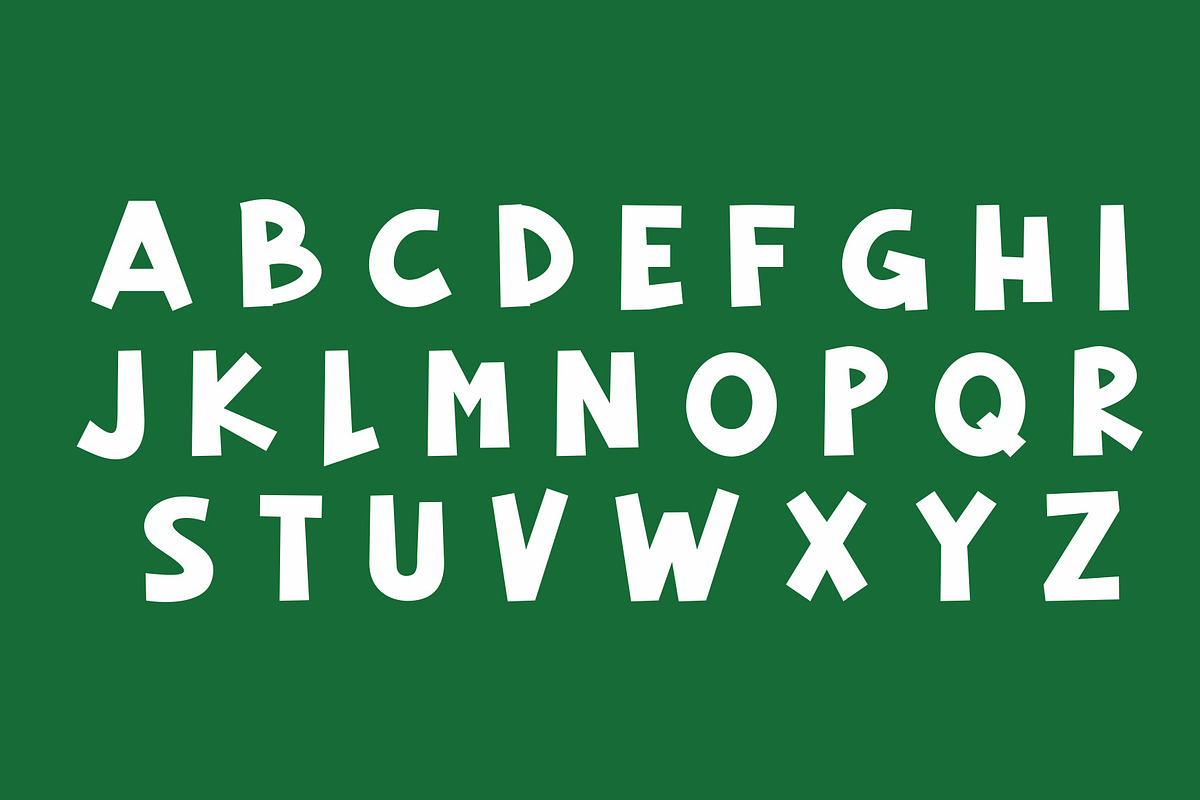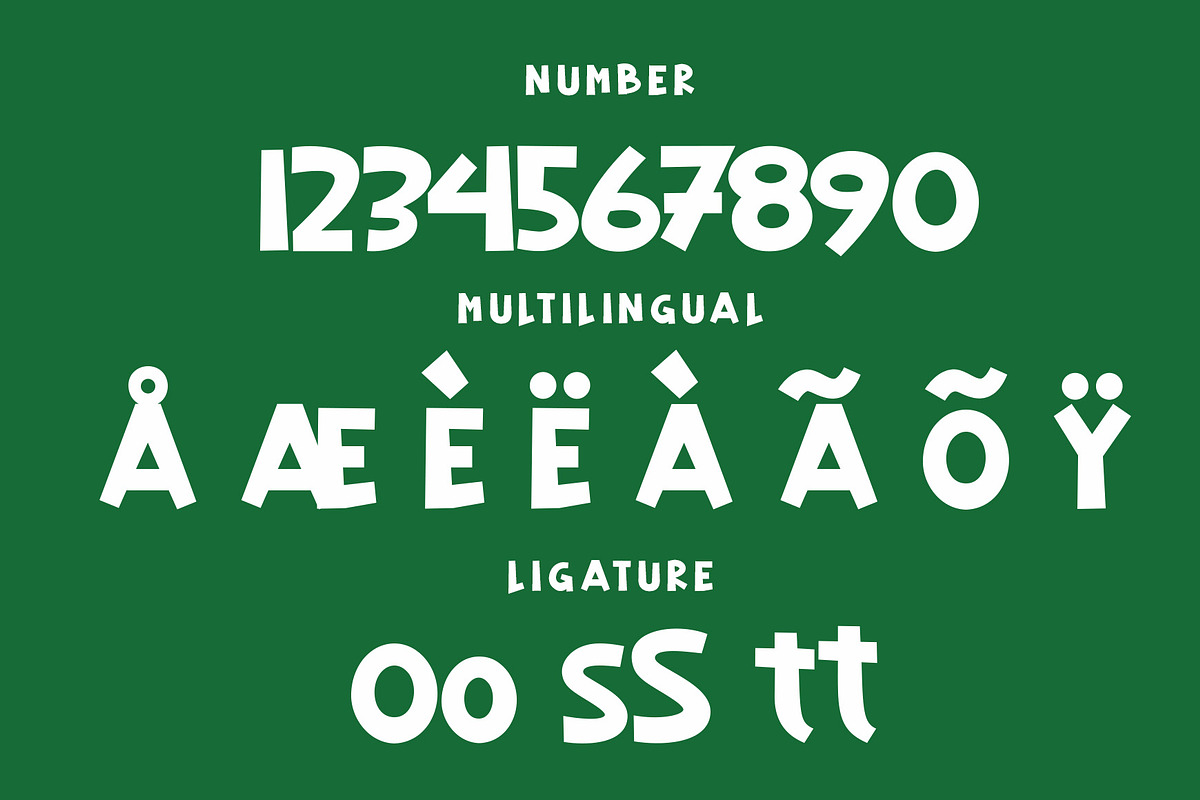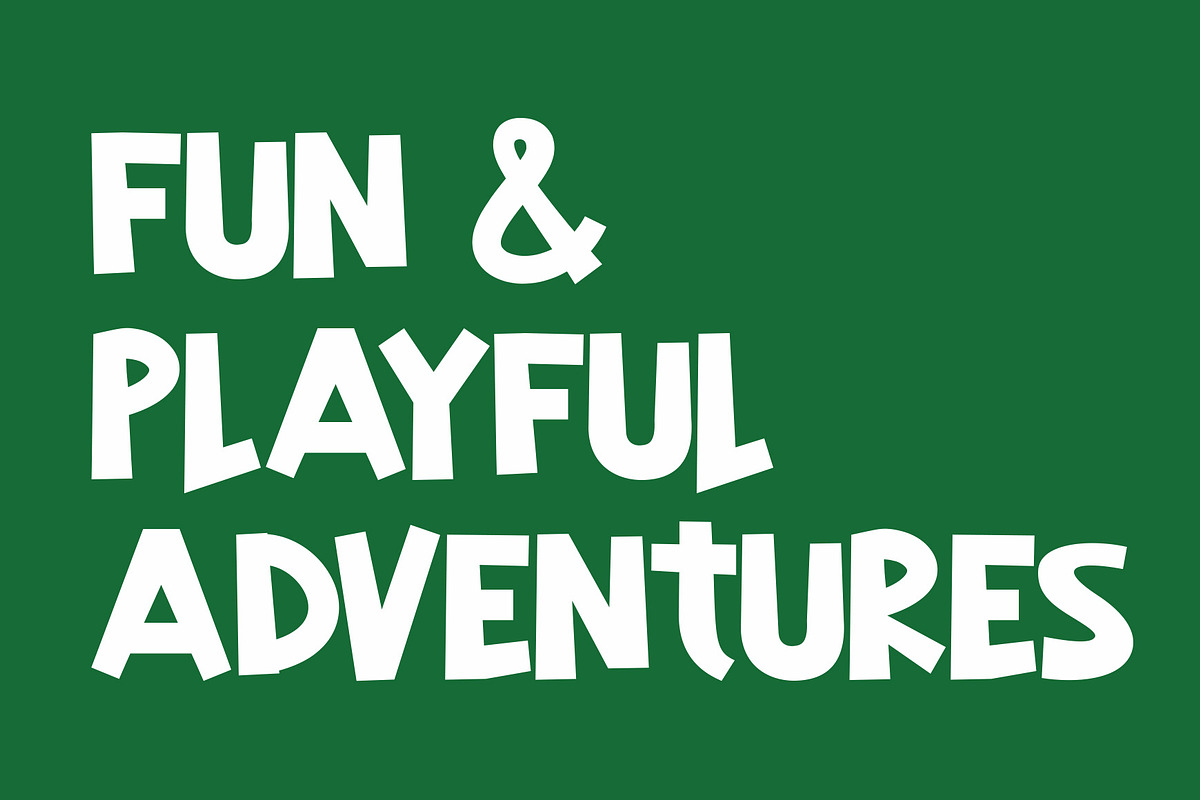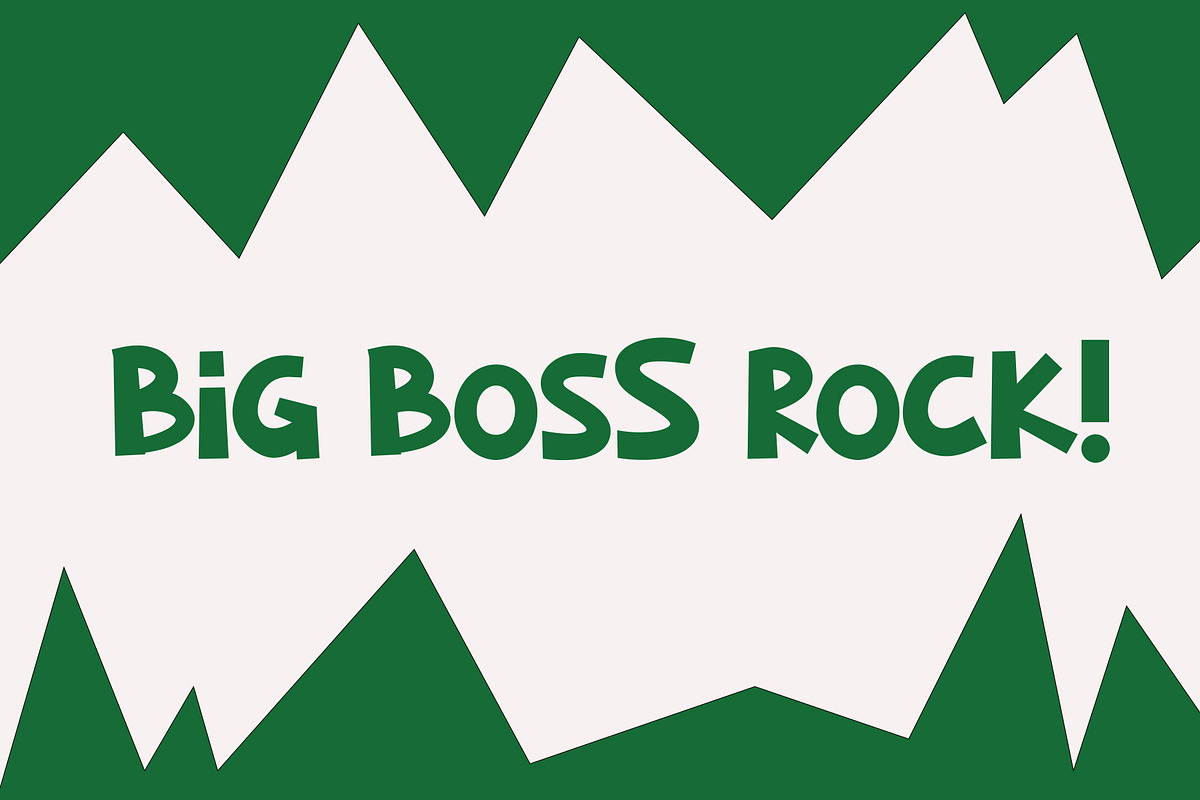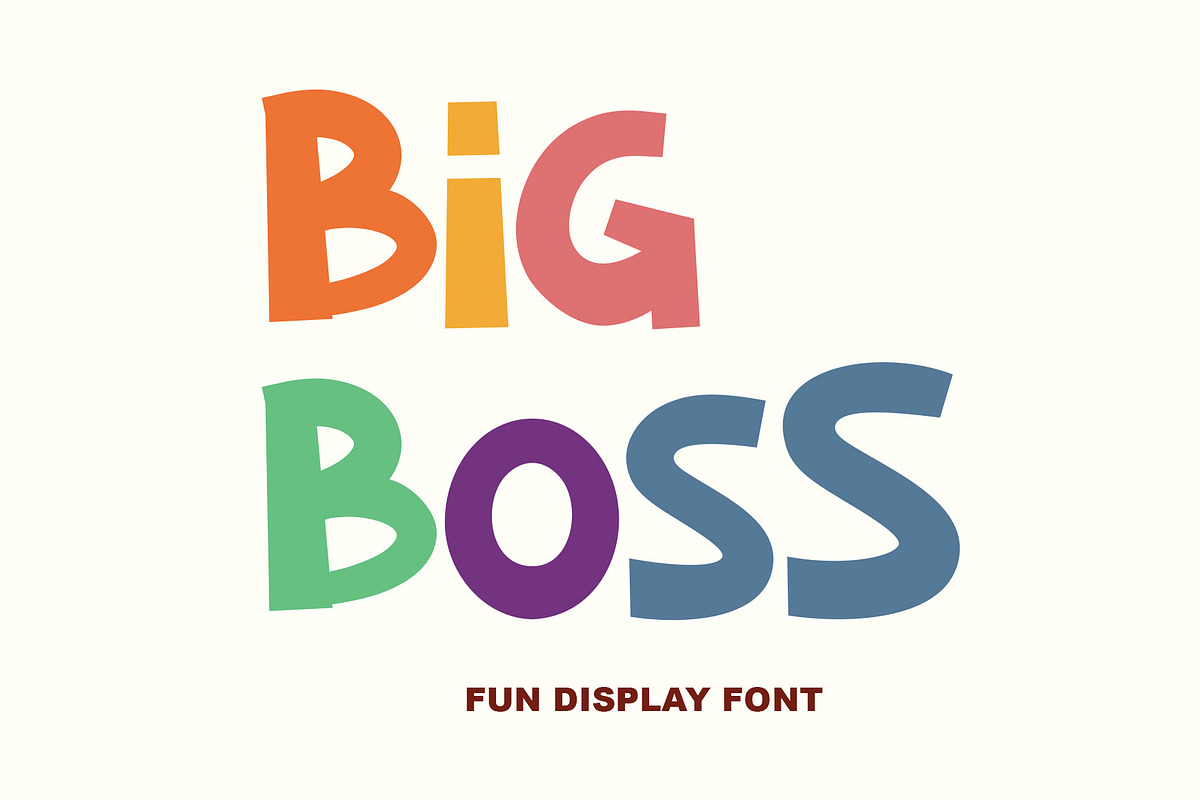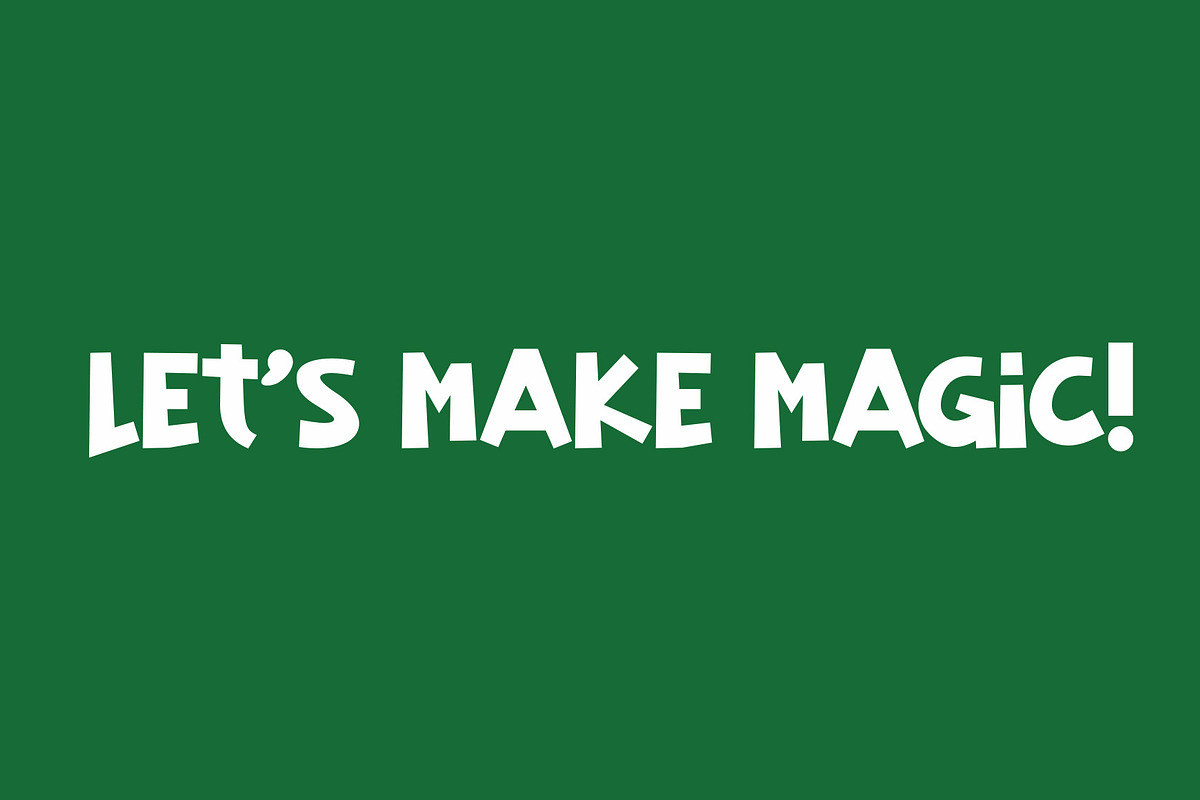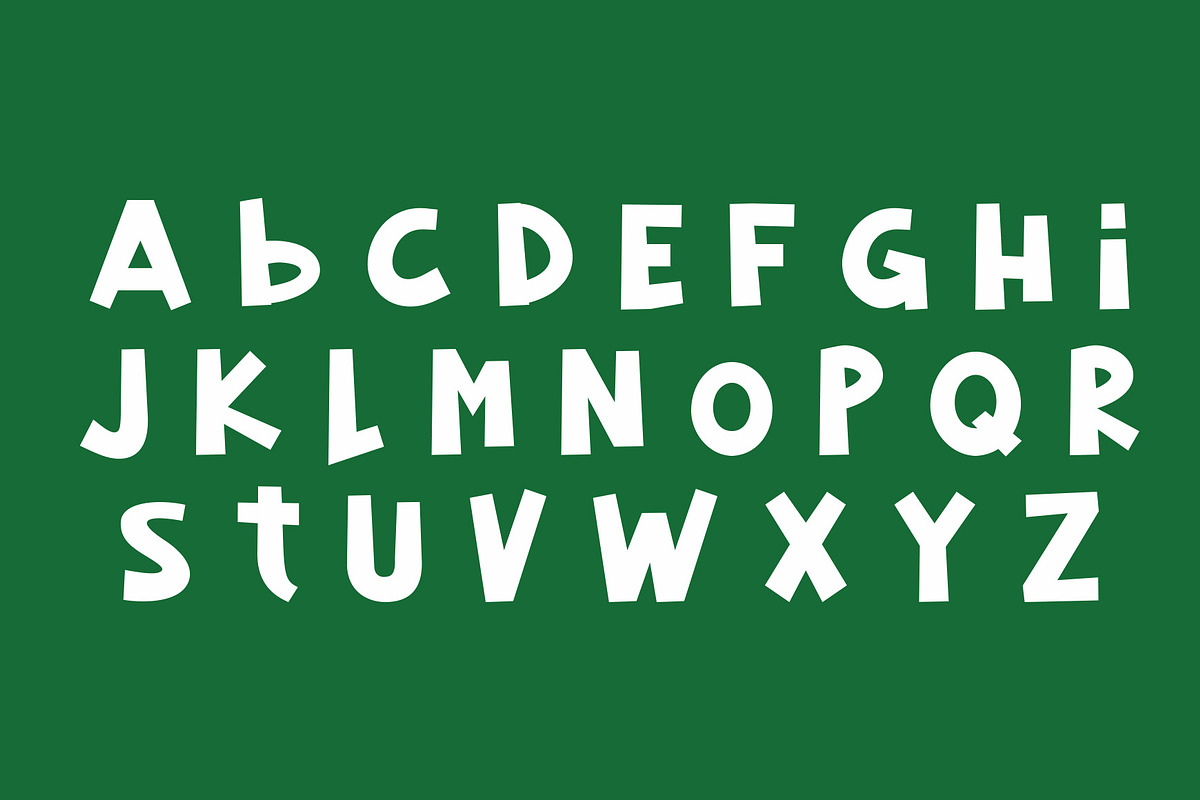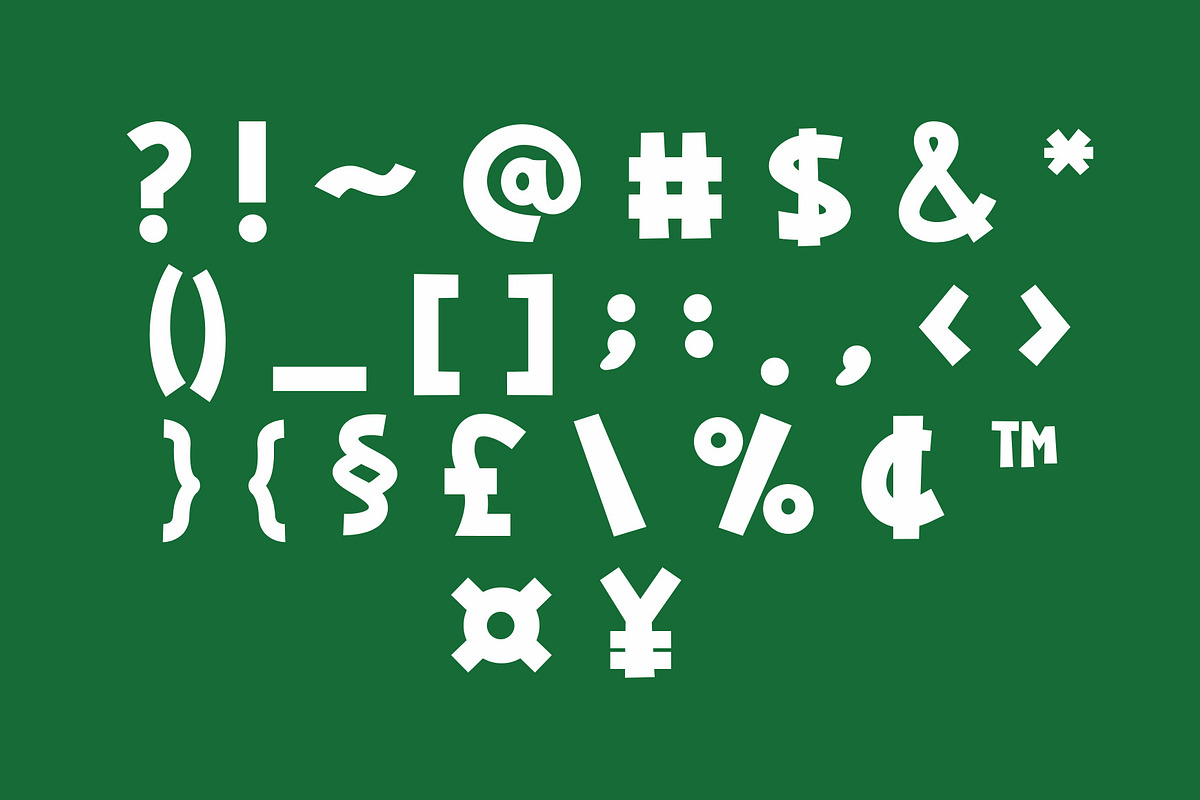
Big Boss - Bold Playful Typography
Big Boss is a fun and character-filled display font designed to bring a cheerful and unique touch to any design. With its quirky and expressive letterforms, this font is perfect for projects that aim to convey joy, from posters and invitations to social media content that wants to capture attention with a playful and lively vibe. Big Boss is especially ideal for children-themed designs, as its friendly and delightful shapes create a warm and enjoyable atmosphere. The font also looks particularly striking when paired with bright and contrasting colors, enhancing visual appeal and making every design project more vibrant and memorable. Additionally, its versatility allows Big Boss to be used across a wide range of creative projects, both digital and print, making it the perfect choice for designers who want to add a fun and unique touch to their work.